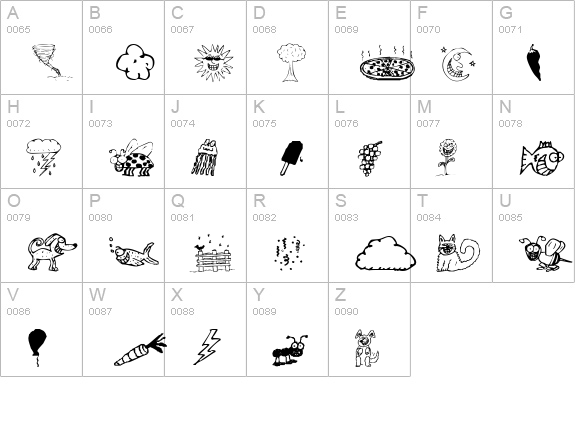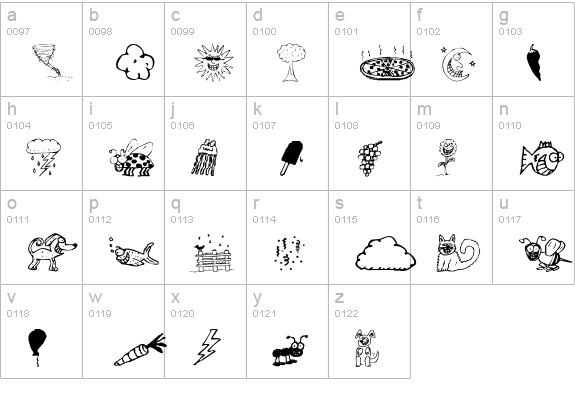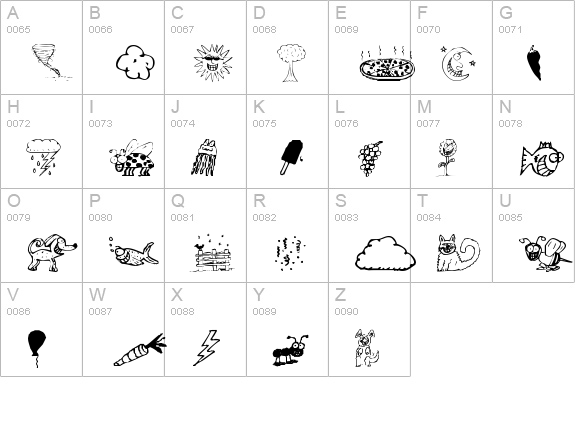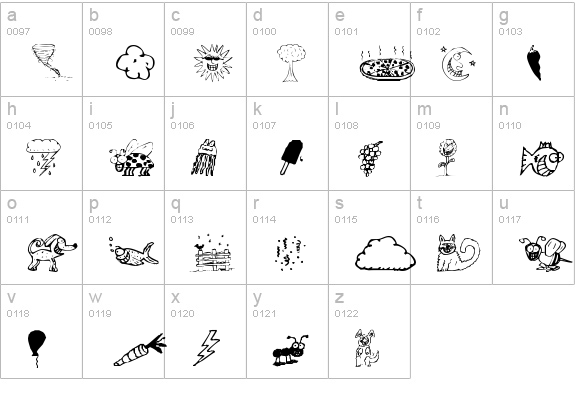
KR Silly Art Dings Font Details
Introducing KR Silly Art Dings font, a whimsical and playful typeface designed to bring a touch of fun and creativity to your projects. This unique font features a collection of quirky and delightful dingbats that are perfect for adding a touch of whimsy to any design. From smiley faces and quirky characters to playful icons and symbols, KR Silly Art Dings font is sure to bring a smile to your audience's face. What's even better is that KR Silly Art Dings font is available for free download at FontsMarket.com. That's right, you can add this charming font to your collection without spending a dime. Whether you're working on a project for school, creating a birthday card for a friend, or designing a poster for a special event, KR Silly Art Dings font is sure to add a playful and creative touch to your work. Download it today and let your imagination run wild with this delightful and free font!